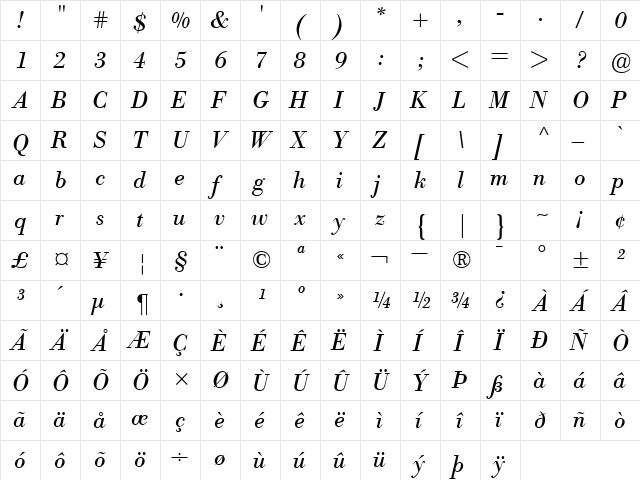
BodoniBE RomanItalic Font Preview
BodoniBE RomanItalic
Design Context for BodoniBE Typeface
BodoniBE offers clean, dependable letterforms without strong stylistic allegiance, making it a practical choice for designers who need flexibility. The dynamic lean of this cut emphasises speed and emphasis in any layout.
Pro Tip: Use BodoniBE for emphasis, pull quotes, and subheadings where its slanted energy can add rhythm to the layout.